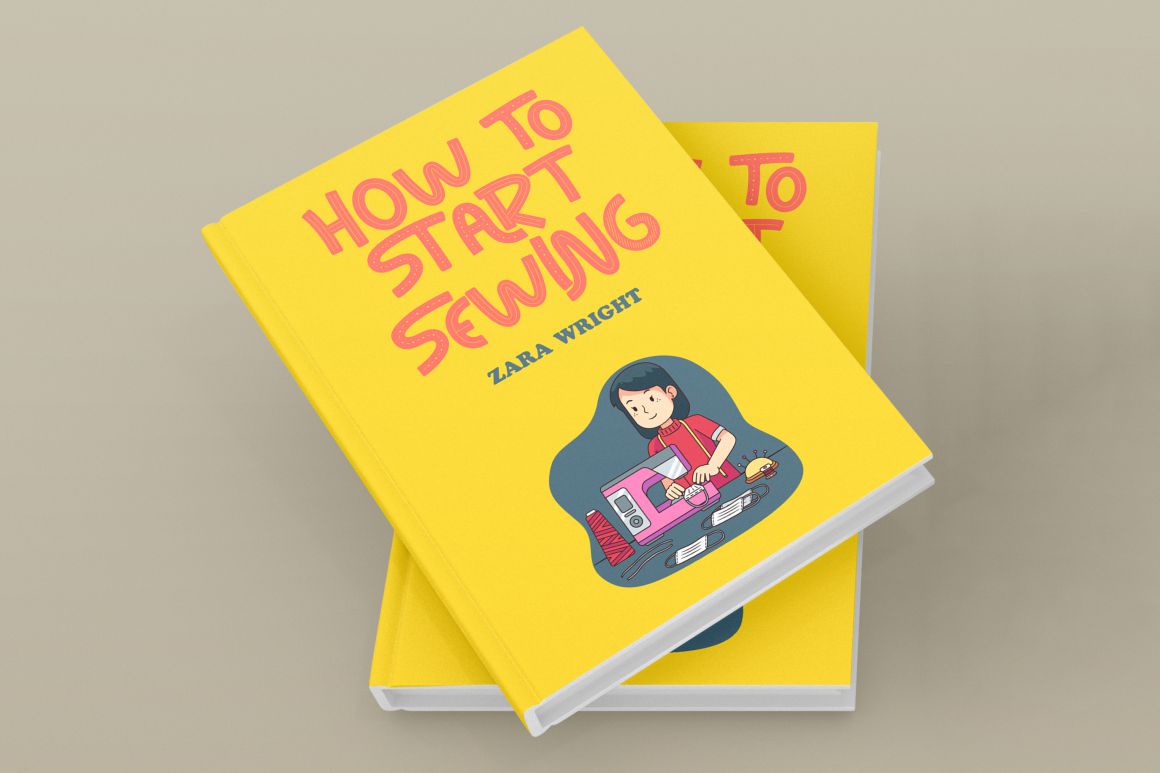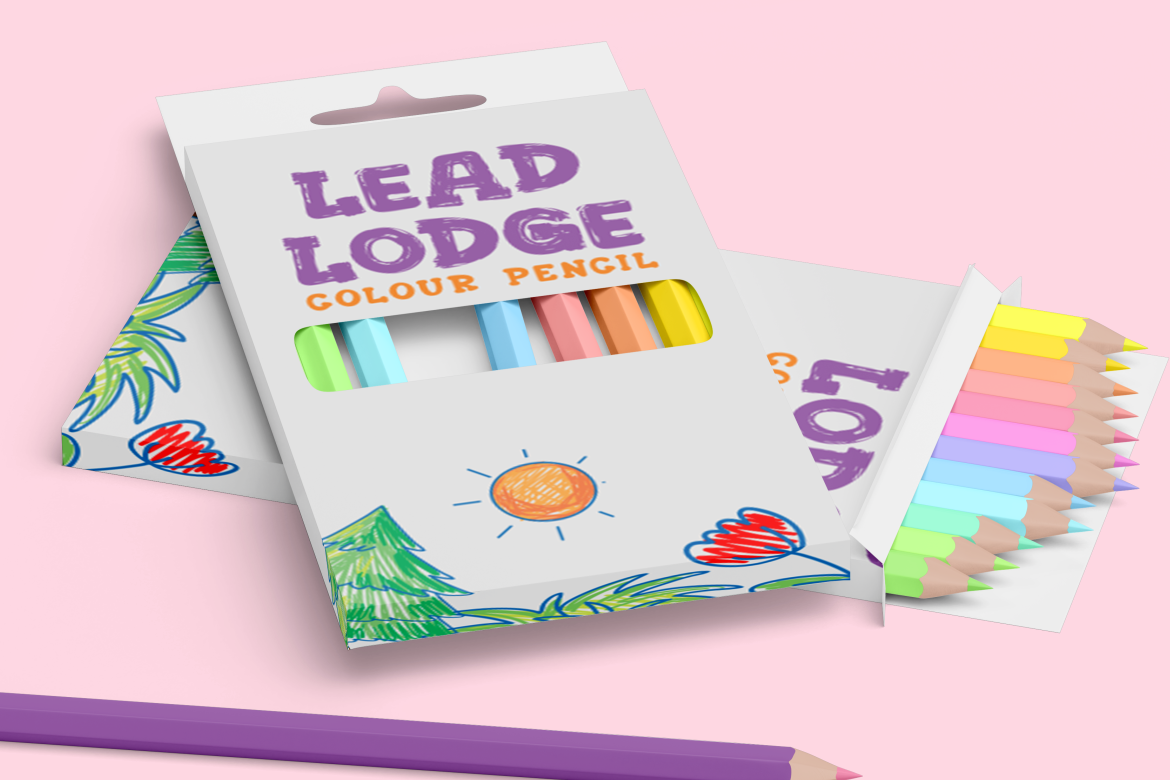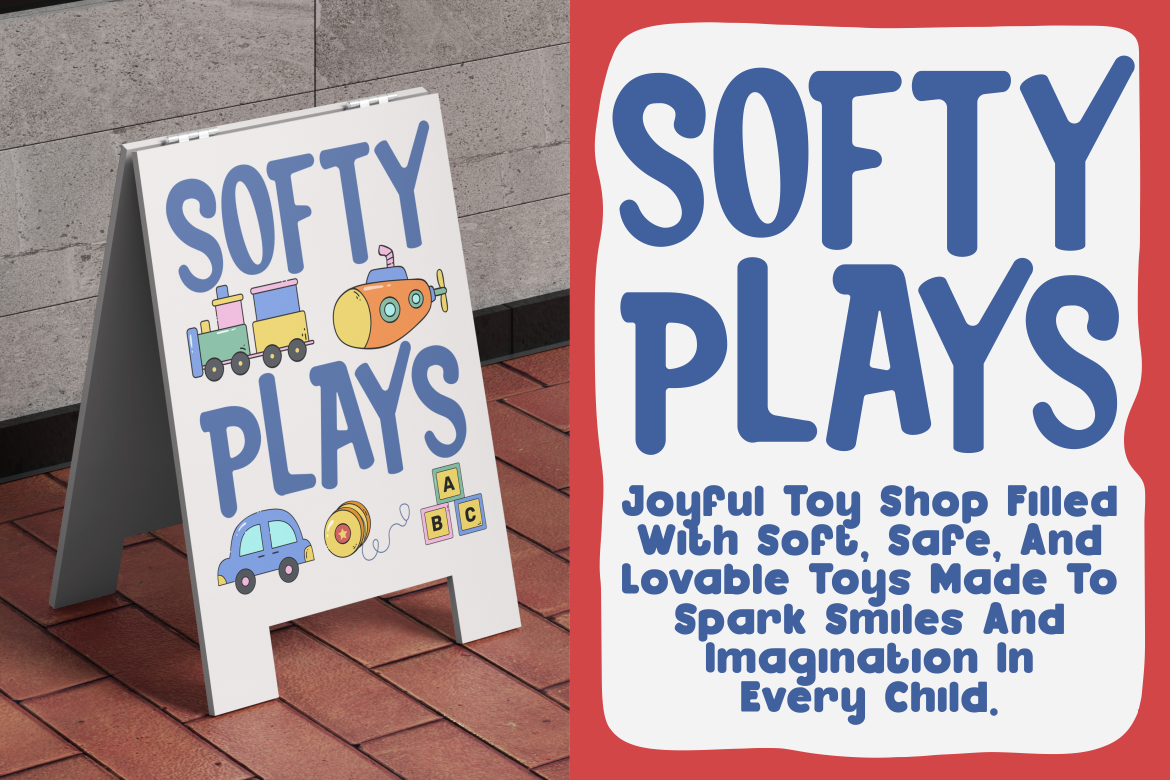
7 Best Children Fonts for Creative Branding and Design Projects
Children’s branding requires a unique balance between fun, creativity, friendliness, and readability. Whether you are designing a toy logo, educational materials, children’s clothing, storybooks, packaging, school projects, or promotional content, the right typeface can instantly communicate energy and imagination.
The best children fonts often feature playful shapes, hand-drawn characteristics, rounded edges, quirky details, and approachable personalities. These design elements help brands connect with children while maintaining trust with parents, teachers, and caregivers.
In this guide, we’ll explore seven of the best children fonts that can help transform ordinary designs into engaging visual experiences. These fonts are suitable for logos, packaging, merchandise, educational products, digital content, and promotional materials that target young audiences.
Initial Suggestion
Before choosing a children’s font, consider these factors:
• Prioritize readability over excessive decoration.
• Match the font style to the age group.
• Use playful fonts for headlines and branding.
• Combine fun typography with clear supporting text.
• Maintain consistency across packaging, websites, social media, and promotional materials.
A good children’s font should feel imaginative while remaining easy to read. The goal is to create excitement without sacrificing communication.
1. Play Block Playful Display Font
Play Block is a bold and cheerful display font that immediately captures the playful spirit of childhood. Its blocky construction gives it excellent visibility while maintaining a fun and approachable personality. This font works particularly well for toy brands, educational games, children’s YouTube channels, learning apps, and colorful product packaging. The strong letterforms ensure excellent readability even when used at larger sizes for logos and promotional banners.
PROS
• Bold and highly visible
• Strong branding potential
• Great for toys and educational products
BEST FOR
Toy brands, educational games, kids merchandise, learning platforms
2. Bloksy 4 Style Shadow Font
Bloksy brings a dimensional and energetic appearance through its layered shadow style. The font feels playful yet structured, making it suitable for children’s books, event posters, birthday branding, and creative educational projects. Its built-in visual depth helps designers create eye-catching titles without relying heavily on additional graphic effects.
PROS
• Unique layered appearance
• Excellent for headlines
• Creates instant visual impact
BEST FOR
Book covers, posters, school events, children’s campaigns
3. Nirakolu Playful Handwriting Font
Nirakolu combines the warmth of handwriting with the charm of children’s creativity. The natural strokes make designs feel personal, friendly, and welcoming. This font is ideal for storybooks, classroom materials, educational websites, and brands that want a more human and approachable personality.
PROS
• Friendly handwritten style
• Natural and authentic appearance
• Versatile across digital and print
BEST FOR
Storybooks, education brands, learning resources, blogs
4. Typo Tingle Quirky Fun Font
Typo Tingle embraces creativity with quirky letterforms that feel energetic and imaginative. The font helps brands stand out while maintaining a playful identity. Its distinctive personality works particularly well for children’s entertainment, activity books, art workshops, and creative learning programs.
PROS
• Highly distinctive character
• Creative visual personality
• Excellent for attention-grabbing designs
BEST FOR
Activity books, kids events, entertainment brands, workshops
5. Crayon Craft Kids Font
Crayon Craft perfectly captures the spirit of children’s drawings and classroom creativity. Inspired by hand-crafted artwork, it creates an educational and artistic atmosphere that resonates strongly with young audiences. The font feels playful without becoming difficult to read.
PROS
• Strong educational theme
• Artistic and creative appearance
• Excellent classroom appeal
BEST FOR
Schools, educational materials, crafts, activity centers
6. Fun Art Friends Handwritten Font
Fun Art Friends delivers a joyful handwritten look that feels energetic and approachable. The playful strokes create a sense of movement and creativity, making it highly suitable for children’s communities, art clubs, creative classes, and social campaigns aimed at younger audiences.